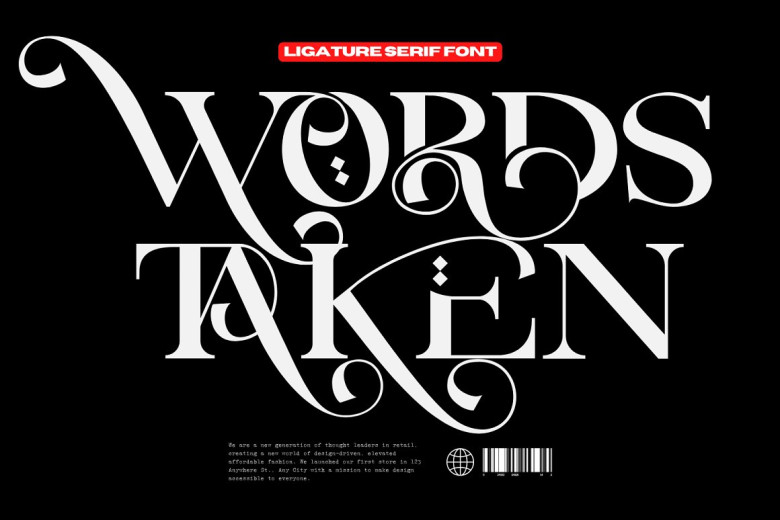
Words Taken Font
Words Taken – is an elegant and stylish serif font, it’s a quirky Serif font, with modern experimental shapes. Designed with high contrast and artistic curves, it gives a dynamic impression and graceful movement with additional special characters!
With it’s classic forms and modern features it will cover a wide range of design projects starting from greeting cards to magazines, wedding invitations, websites etc. The amount of alternates is tremendous, from simple stylistic alternates to swashes, ligatures and their alternates.
Words Taken Serif Font